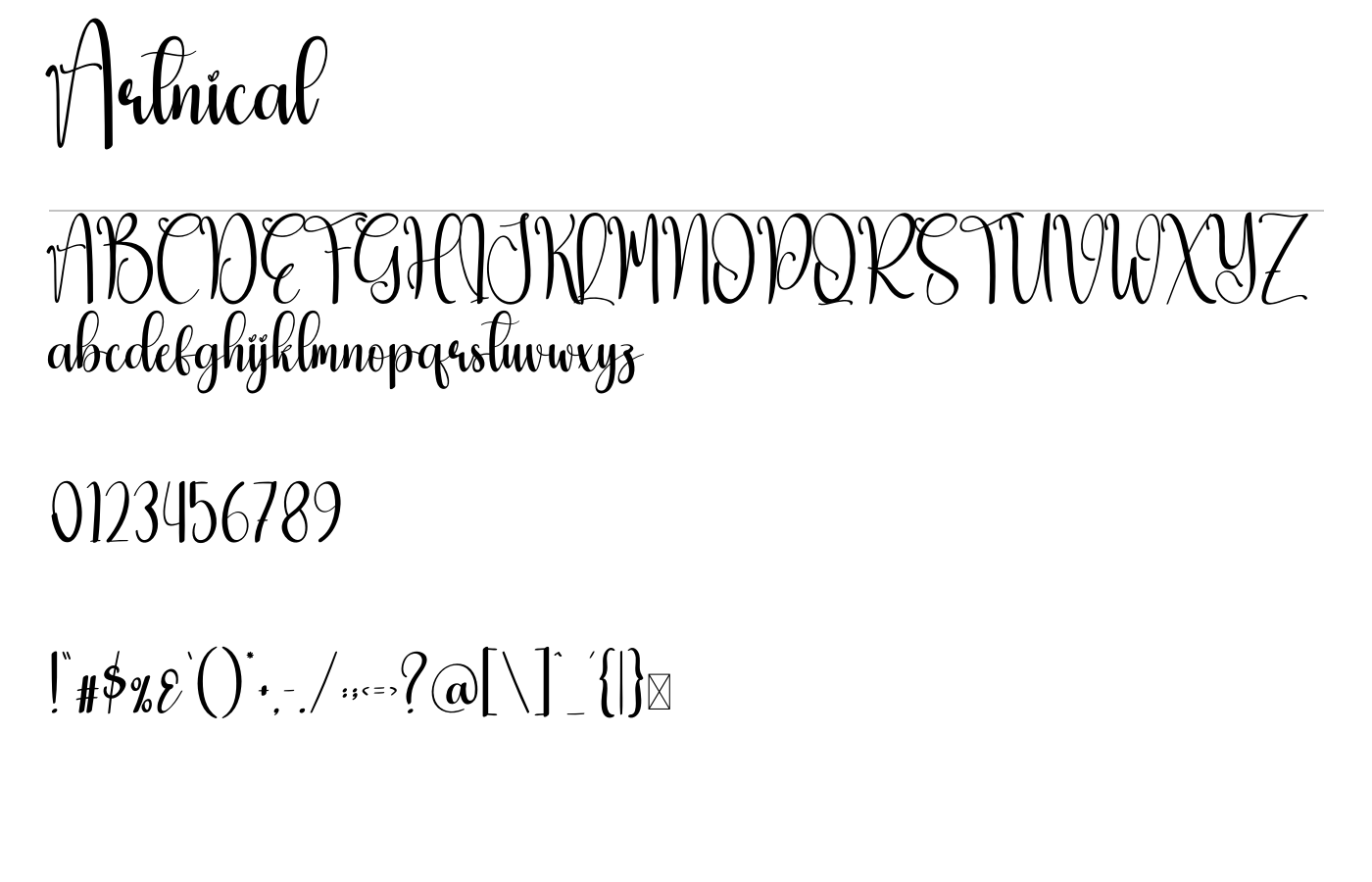
Artnical is an elegant, hand-drawn script font with tall, slender letterforms and delicate strokes that combine playful curves with refined flourishes. Its whimsical style makes it ideal for creative projects like invitations, branding, and artisanal packaging where a personal, stylish touch is desired. This font works best in display settings where its unique character can shine and add charm to any design.
Artnical Font
About Artnical Font